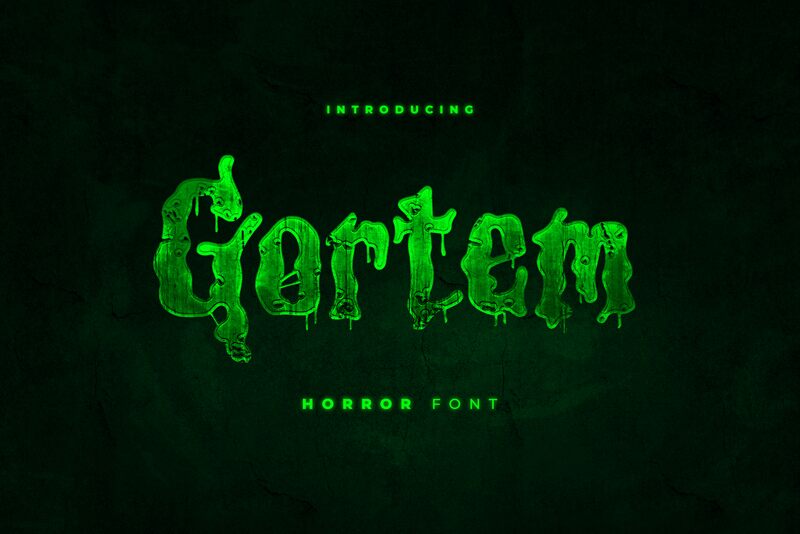
Gortem Pro
Gortem Pro by FG Studios is a display font that exudes an eerie, spine-chilling aura. Its tight, condensed width and dripping, goo-like appearance make it the epitome of unsettling and mysterious design. The spooky style draws eyes immediately, casting a shadowy effect that feels not just visual but almost tactile.
Perfect for creating an atmosphere of suspense and thrill, Gortem Pro finds its ideal place in horror-themed posters, Halloween invitations, and haunted house signage. Its unique characteristics also make it a standout choice for video game titles or film credits needing that extra touch of terror. For designers looking to invoke fear and curiosity in equal measure, Gortem Pro is undeniably your go-to typeface.